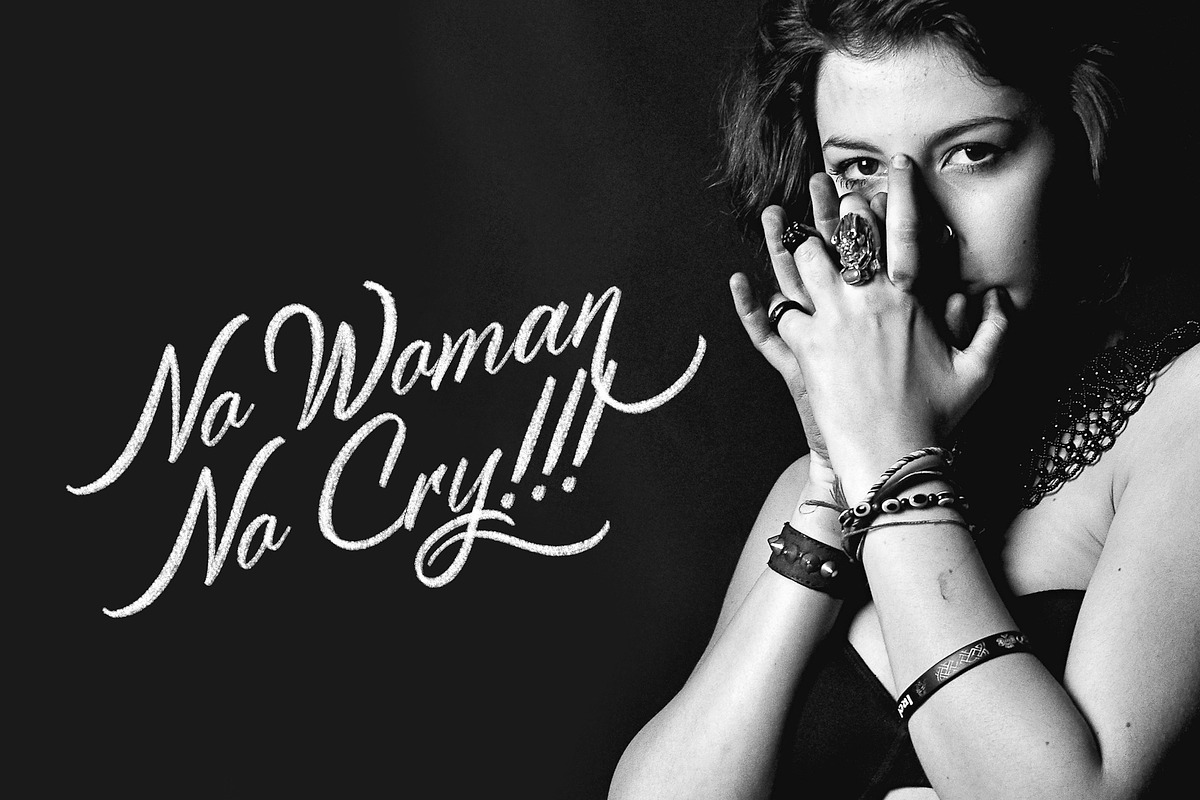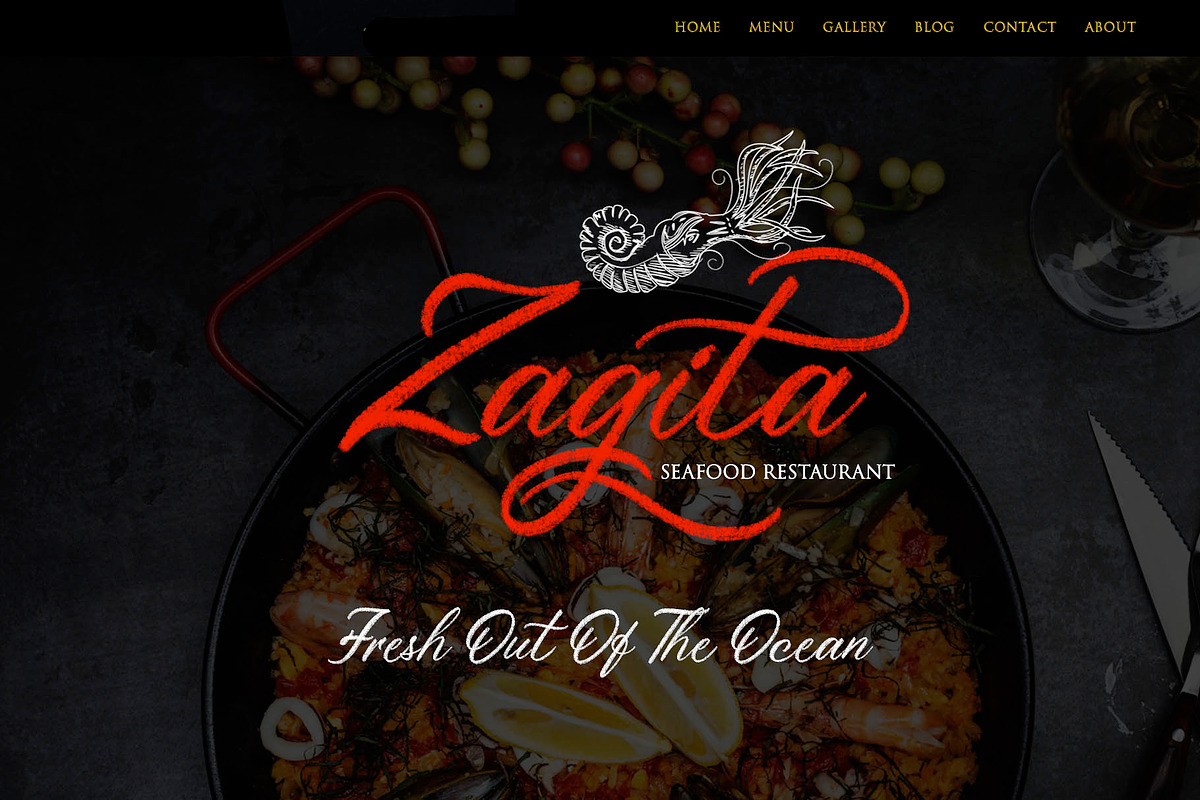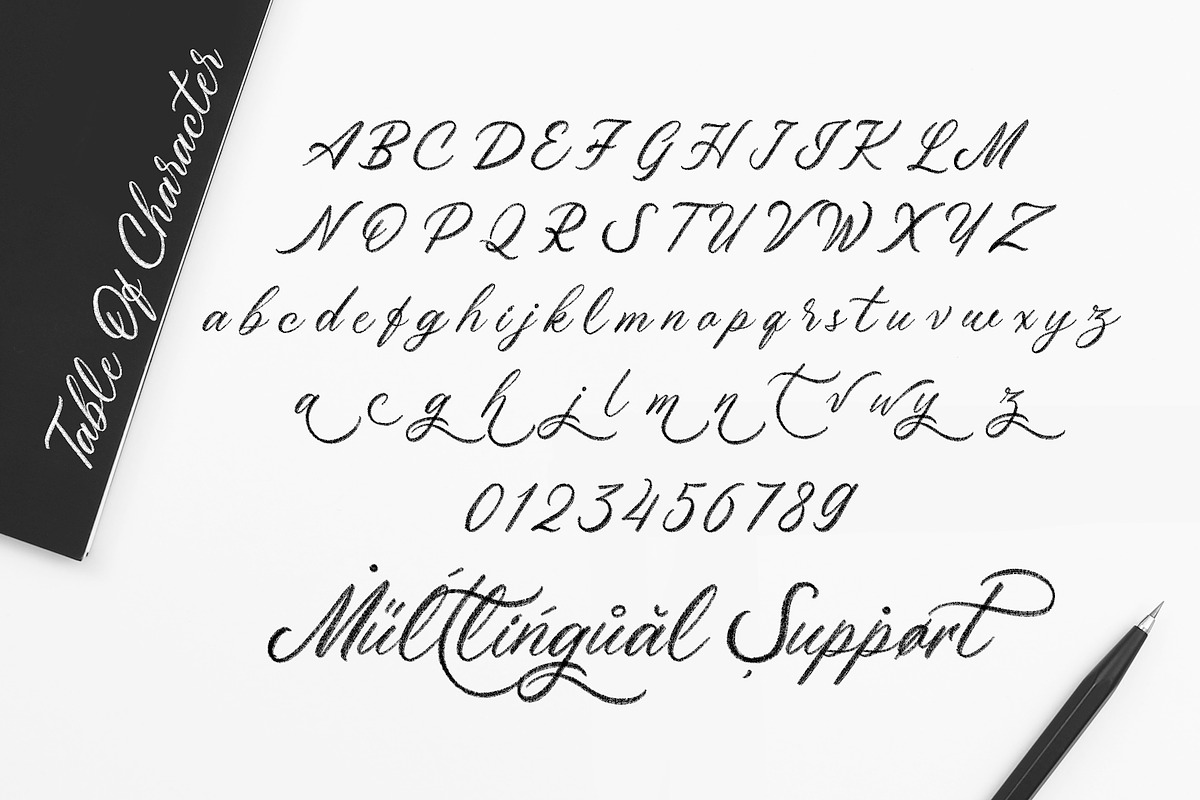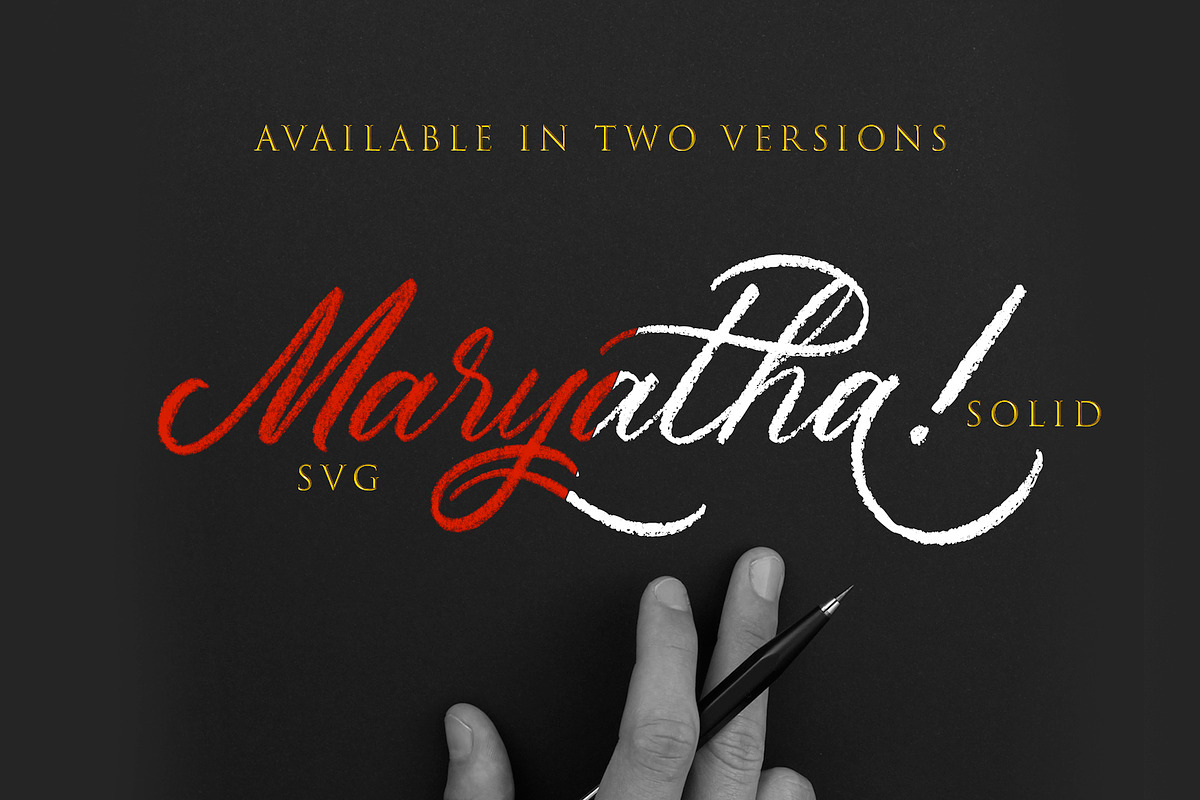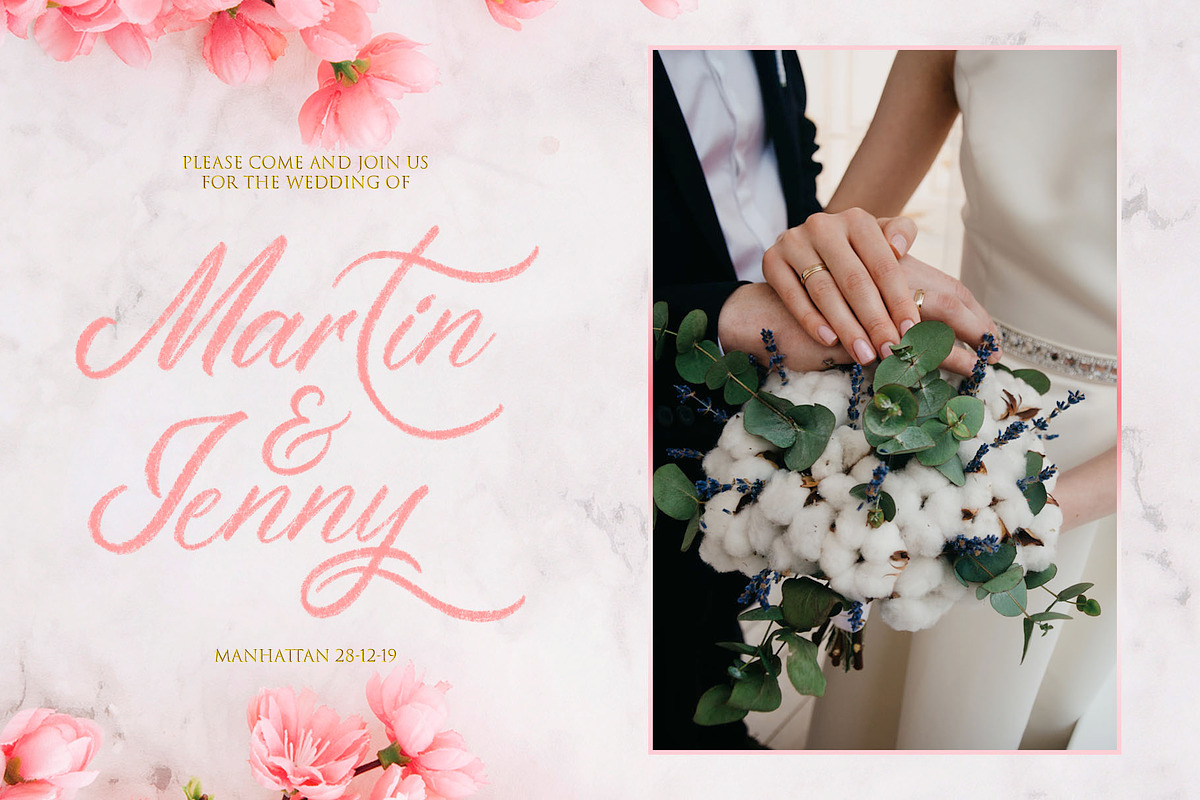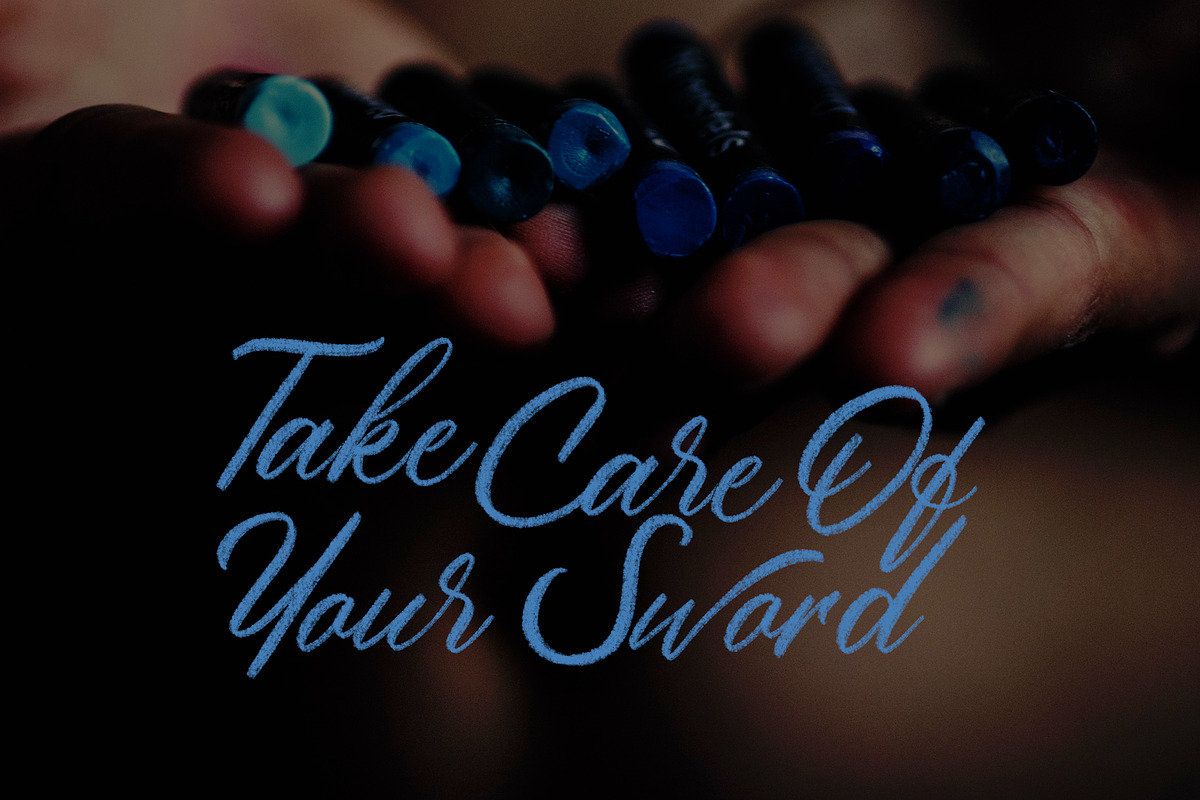
Maryatha SVG Font
Everyone meet our first SVG Font Maryatha
Maryatha is a new beautiful font, with high quality crayon textured made this font look like your handwriting. Create your moodboard, typography, your Insta story or anything you wanna create look gorgeous.
Font Feature-Alternate Character like the other great font we just added some alternate character and still adding some alternate for the next update. Multilanguange Support and like our other font this font covered basic latin language. See list : Chiga, Congo Swahili, Cornish, Croatian, Czech, Danish, English, Estonian, Faroese, Filipino, Finnish, French, Galician, German, Gusii, Hungarian, Icelandic, Indonesian, Irish, Italian, Kabuverdianu, Kalenjin, Kinyarwanda, Luo, Luyia, Machame, Makhuwa-Meetto, Makonde, Malagasy, Malay, Manx, Morisyen, North Ndebele, Norwegian Bokmål, Norwegian Nynorsk, Nyankole, Oromo, Portuguese, Romansh, Rombo, Rundi, Rwa, Samburu, Sango, Sangu, Sena, Shambala, Shona, Slovak, Slovenian, Soga, Somali, Spanish, Swahili, Swedish, Swiss German, Taita, Teso, Turkmen, Vunjo, Zulu